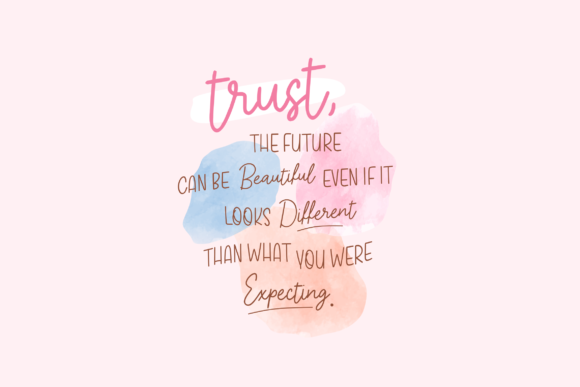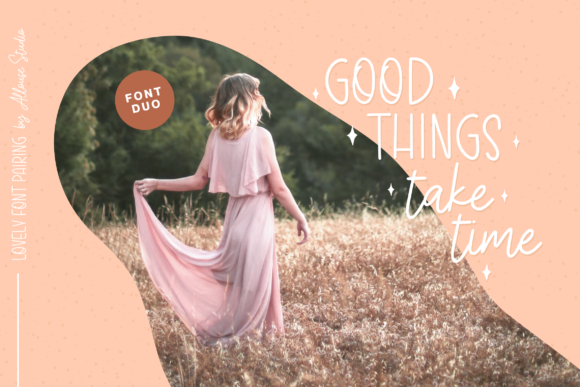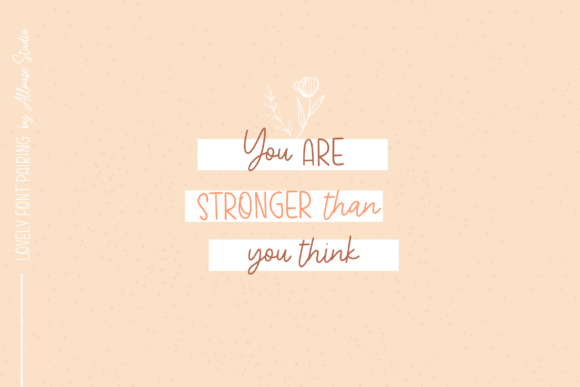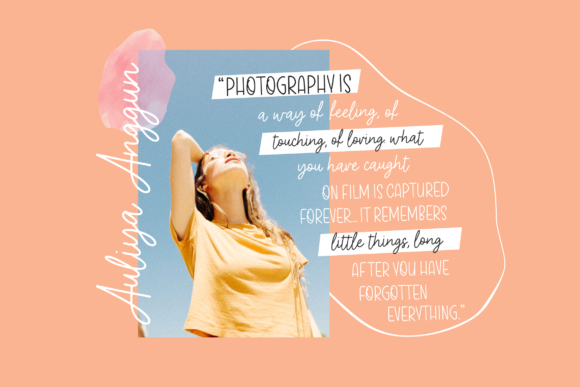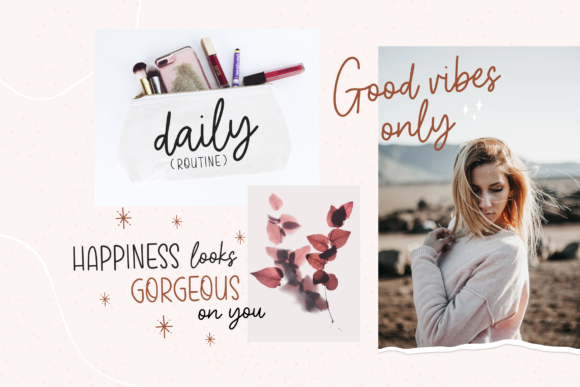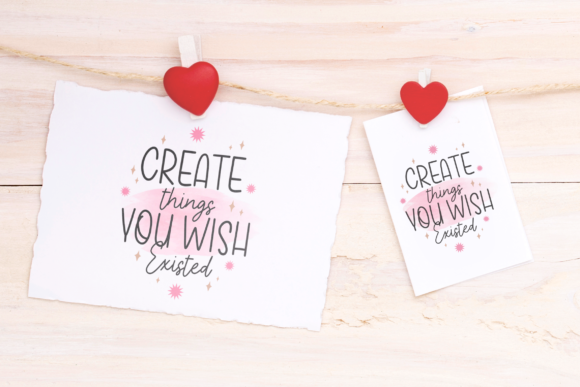
The Perfect Pair for Your Design Needs
There’s nothing quite like the feeling of finally finding the perfect font to elevate your design. It’s like stumbling upon a hidden treasure, and suddenly, your entire project comes together. For many designers, this moment of serendipity is what makes the creative process so thrilling. And for those who have been searching for a reliable duo font, we’re excited to introduce the Honey Waffles Duo Font – a harmonious pairing of sans serif and script fonts that will take your designs to the next level.
The Honey Waffles Duo Font is designed to work seamlessly together, making it an invaluable addition to any designer’s library. With its versatility and effortless pairing capabilities, this font duo is sure to become a go-to favorite for your next project. Whether you’re a seasoned pro or just starting out, the Honey Waffles Duo Font is a must-have for any designer looking to add a touch of elegance and sophistication to their designs.
Honey Waffles Duo Font Key Features
- Unique Characteristics: The Honey Waffles Duo Font features a playful, hand-drawn design with a mix of modern and vintage elements, giving it a unique and eye-catching appearance.
- Script and Regular Versions: The font includes both a script and regular version, providing designers with flexibility and options for creating different typography styles.
- Perfect for Creative Projects: The Honey Waffles Duo Font is ideal for use in creative projects, such as invitations, greeting cards, and other paper crafts, where a unique and playful design is desired.
Honey Waffles Duo Font Review
I recently had the chance to work with the Honey Waffles Duo font, and I must say it’s been a mixed bag. Here are my honest thoughts on what works well and what doesn’t.
- Unique blend of modern and vintage styles: The Honey Waffles Duo font has a distinct charm that sets it apart from more traditional fonts. Its mix of clean lines and ornate details makes it perfect for projects that need a touch of whimsy.
- Highly legible: Despite its intricate design, the font is surprisingly easy to read, even at smaller sizes.
- Not ideal for body text: While the font is great for headlines and titles, it may not be the best choice for large blocks of body text due to its complexity and ornamentation.
- Limited font weights: The font only comes in two weights, which may limit its versatility for projects that require a range of font weights.
The Honey Waffles Duo font is a great choice for projects that need a unique, eye-catching design. While it has some limitations, its strengths make it a solid addition to any font collection. Just be mindful of its limitations when using it for body text or projects that require multiple font weights.
Tips for Getting the Most Out of Honey Waffles Duo Font
Use Honey Waffles Duo Font for creative and playful designs, such as:
– Food and beverage branding
– Children’s products and educational materials
– Social media graphics and advertisements
Experiment with different font sizes, colors, and styles to create a unique and eye-catching design.
Alternatives to Honey Waffles Duo Font
Lobster Font is a fun, casual script font that’s perfect for creating a playful and laid-back atmosphere. It’s ideal for use in social media posts, advertisements, and other promotional materials where you want to convey a sense of fun and approachability.
Compared to Honey Waffles Duo Font, Lobster Font has a more casual and relaxed feel, making it suitable for a wider range of applications.
Great Vibes Font is a beautiful, elegant script font that’s perfect for creating a sophisticated and stylish atmosphere. It’s ideal for use in high-end branding, weddings, and other special events where you want to convey a sense of luxury and refinement.
Are there any specific requirements for using the Honey Waffles Duo Font at small font sizes?
For optimal results, it’s recommended to use the Honey Waffles Duo Font at a minimum size of 12 points. At smaller font sizes, the font may become difficult to read. If you need to use the font at smaller sizes, consider using a font with a higher x-height or a font that is specifically designed for small text sizes.